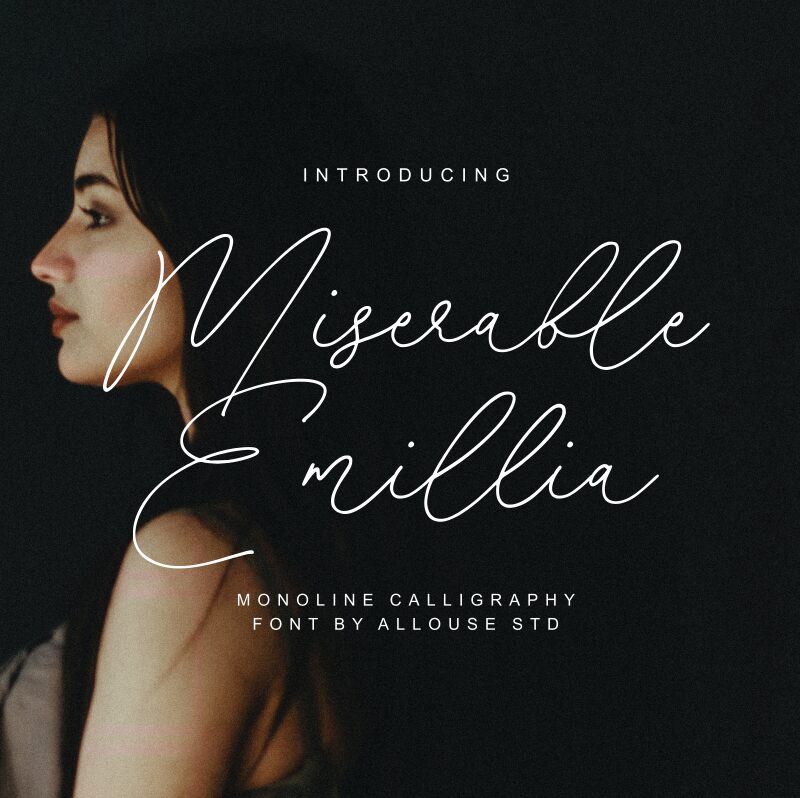
Miserable Emillia font is a free handwritten font by Allouse Studio. Its movements are fluid, casual, and contemporary, which gives it quite a charming and eye-catching presence. It is both organic and modern, with its beautiful curves that will find a lot of uses in creative design. It’s artistic, expressive, and elegant, making it a true contender among unusual unique fonts.
Advertising is a field that this font conquers easily. Label design, signage, logos, social media posts, greeting cards, or packaging design are some items Miserable Emillia works great with. Other very interesting uses include book covers, invitations, identity, and motivational posters.